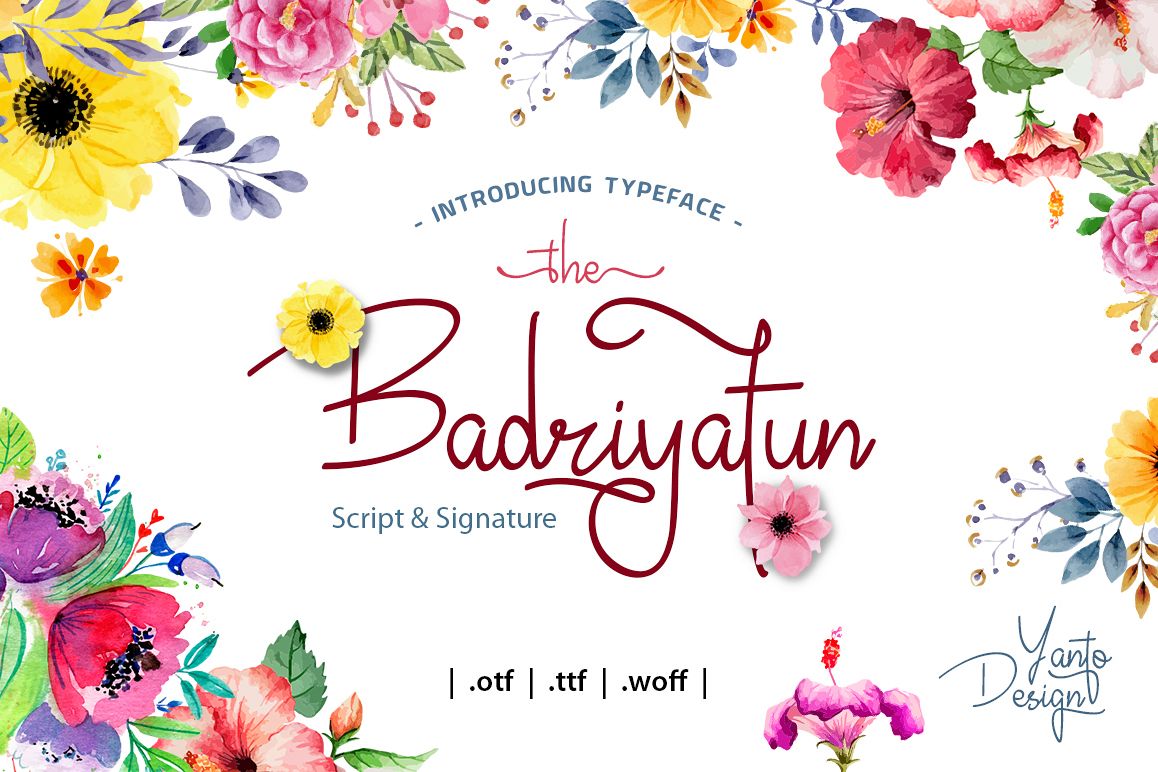
Badiryatun Script Font
BadriyatunScript
Badriyatun Script is a stylish calligraphy font that features a varying baseline, smooth line, classic and interesting touch. Can be used for various purposes. such as headings, signature, logos, posters, t-shirt, signage, lable, wedding invitation, badges etc.